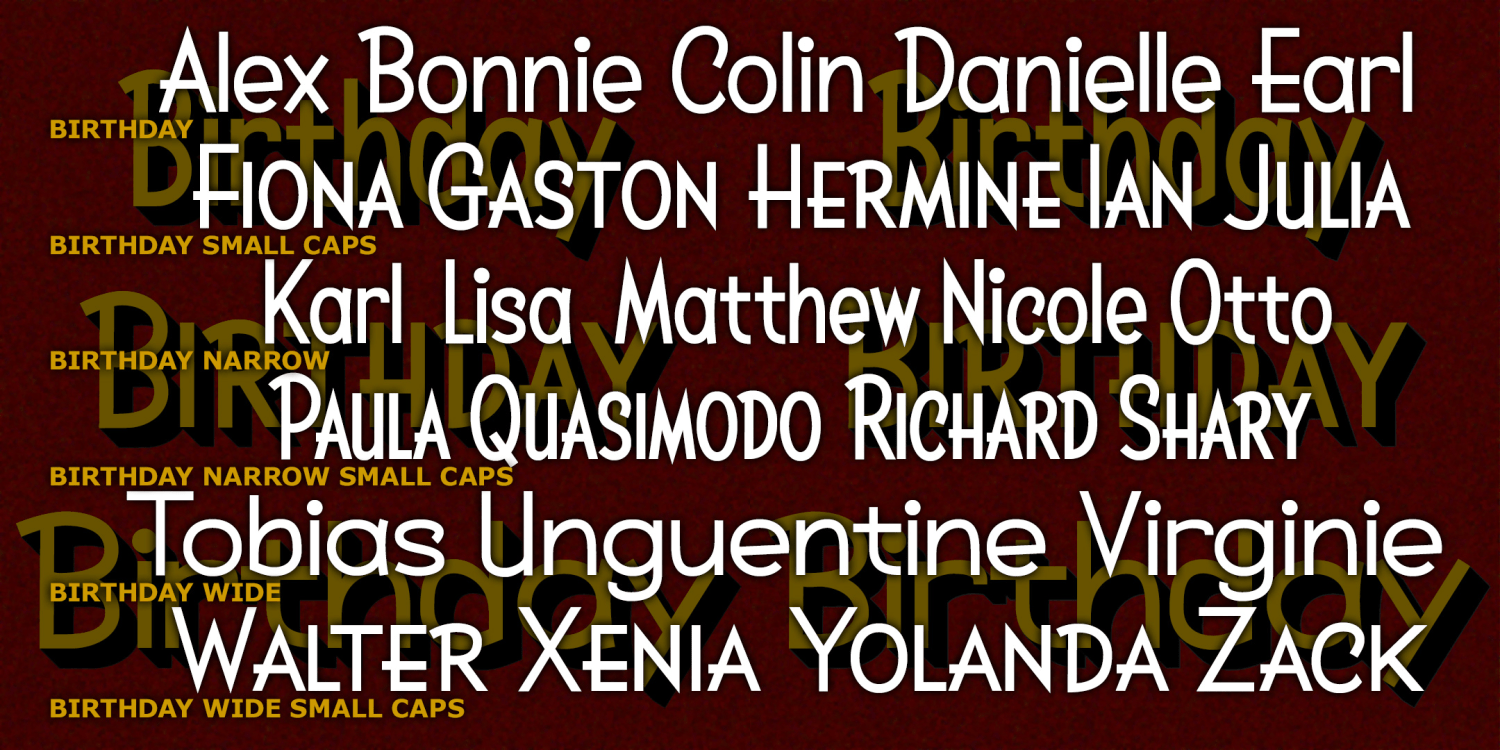
HomeFont BrosRetro (1936-1965)Birthday Retro (1936-1965)Sans Serif Birthday FacebookXPinterestWhatsApp 1 of 1 About Birthday BIRTHDAY is a bright and lively sans serif. There are three widths, Narrow, Regular, and Wide, and each is available with a large and small caps option.  DOWNLOAD ON FONT BROSThis font is sold and delivered by Font Bros. Font Canyon may earn a commission if you buy through this link. People also explored Master Elegant Font Bubble Empty Font Java Temple Font Noodle Rossera Font Edwardson Signature Font Shamu Chain Lover Font Birthday Party Font 360 0 TagsBirthday Font Previous articleBaby BunnyNext articleBaby and Milk LEAVE A REPLY Cancel reply Comment: Please enter your comment! Name:* Please enter your name here Email:* You have entered an incorrect email address! Please enter your email address here Website: Save my name, email, and website in this browser for the next time I comment. Personal Use Free Bonifaciy Personal Use Free Read more about this font Masha Song Personal Use Free Read more about this font Lazy Sunday Personal Use Free Read more about this font True Love Personal Use Free Read more about this font BLOG Free vs Paid Fonts: Why Investing in Premium Fonts Is Worth It Free vs Paid Fonts: Why Premium Fonts Are Worth It in 2025 The debate of free vs paid fonts continues in the design world. While... To increase your work productivity, choose the most readable fonts. Fonts That Capture the Spirit of New York City Top 10 Handwritten Fonts That Elevate Your Designs